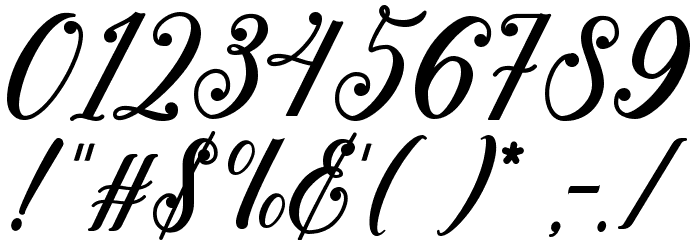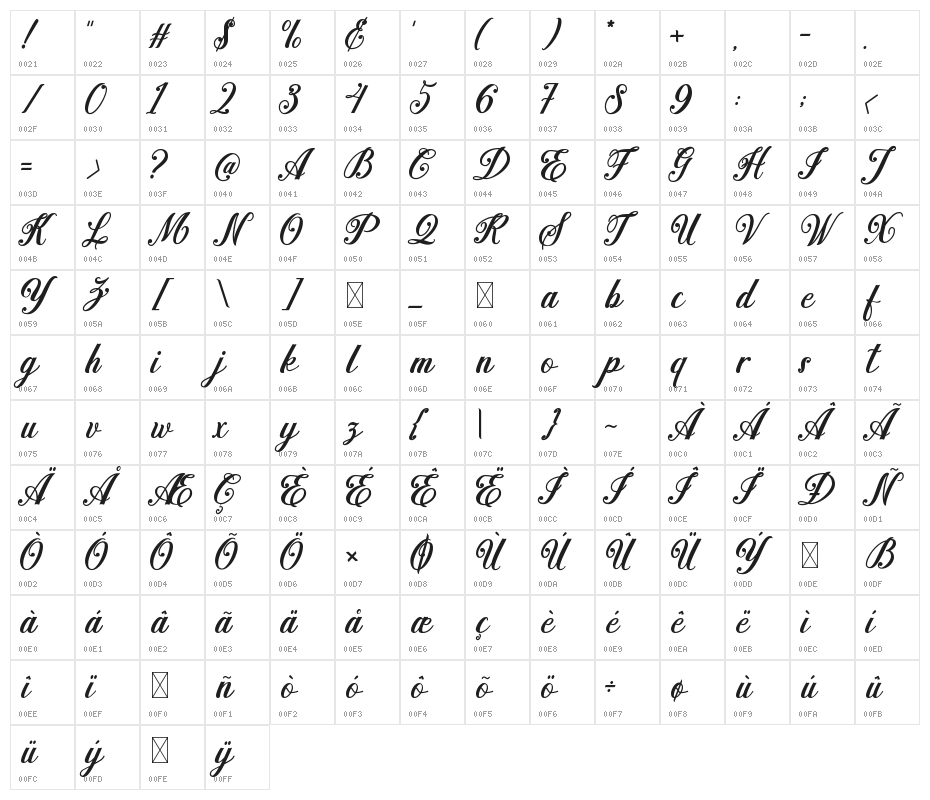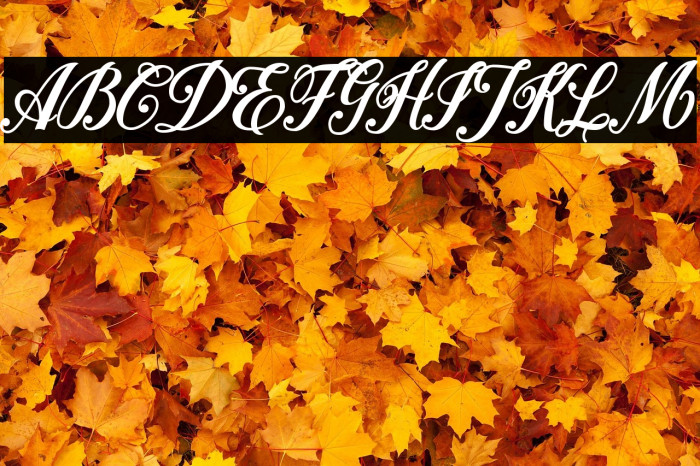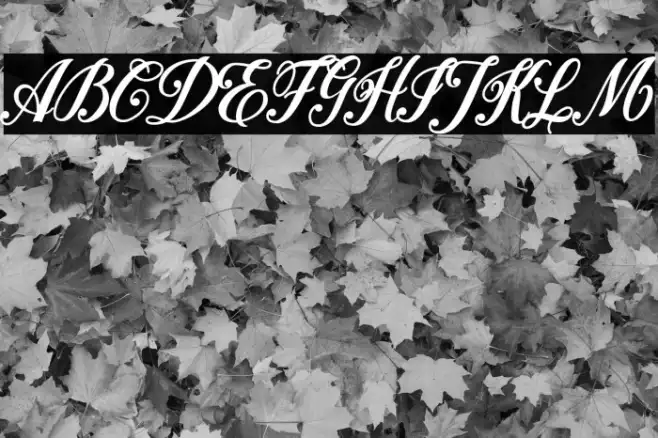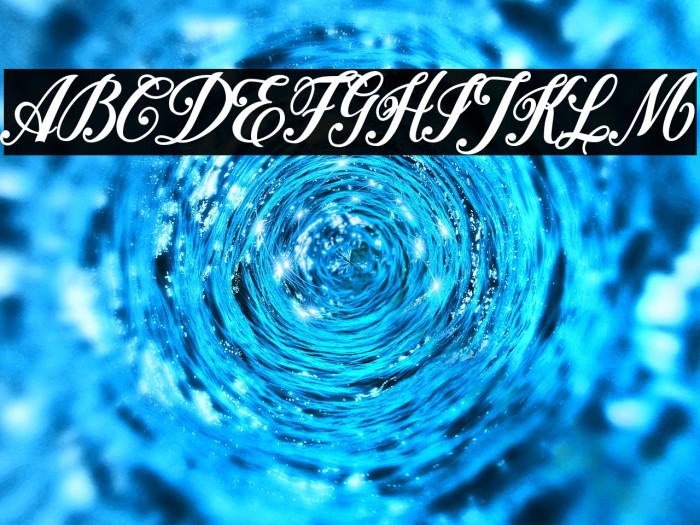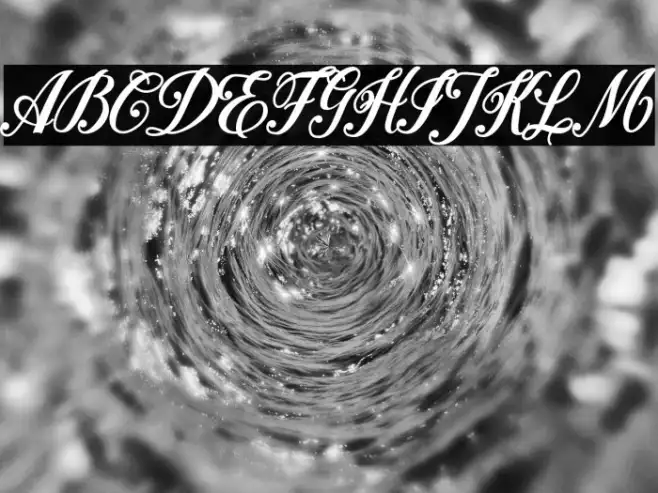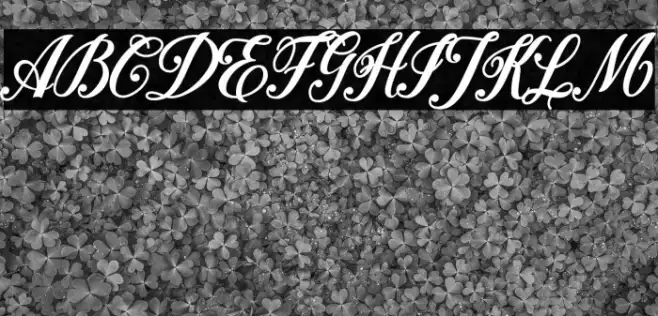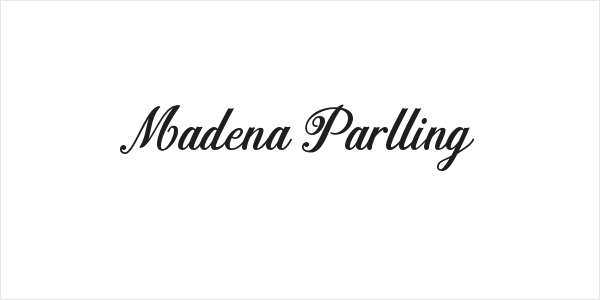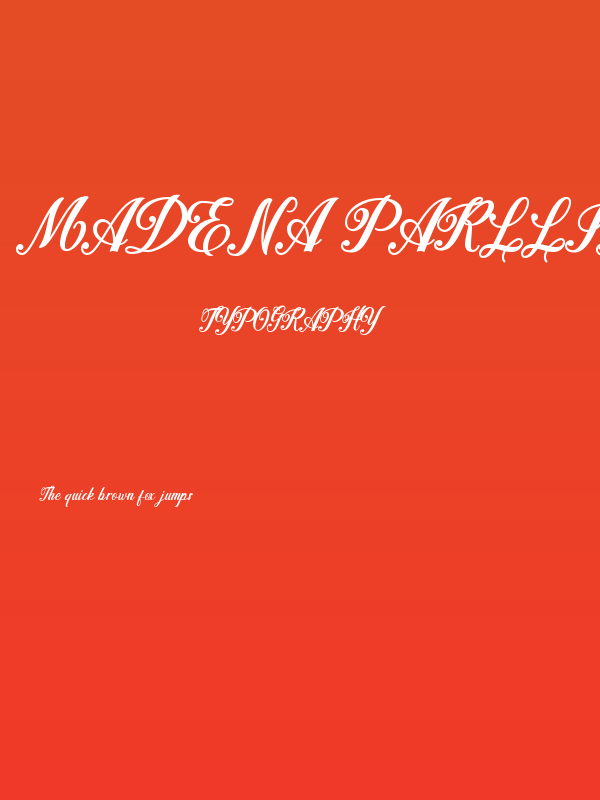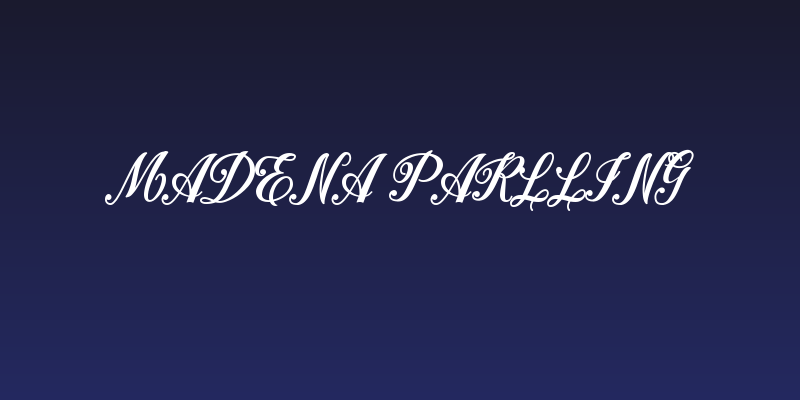
Madena Parlling Font
Madena Parlling Description
This elegant script font features a flowing, cursive style with graceful curves and loops. The uppercase letters are ornate, with intricate swashes that add a touch of sophistication. The lowercase letters maintain a consistent flow, enhancing readability while retaining an artistic flair. Numbers and special characters are designed to match the overall aesthetic, making the font versatile for various applications. The font's design is reminiscent of classic calligraphy, yet it maintains a modern touch, making it suitable for both traditional and contemporary projects.